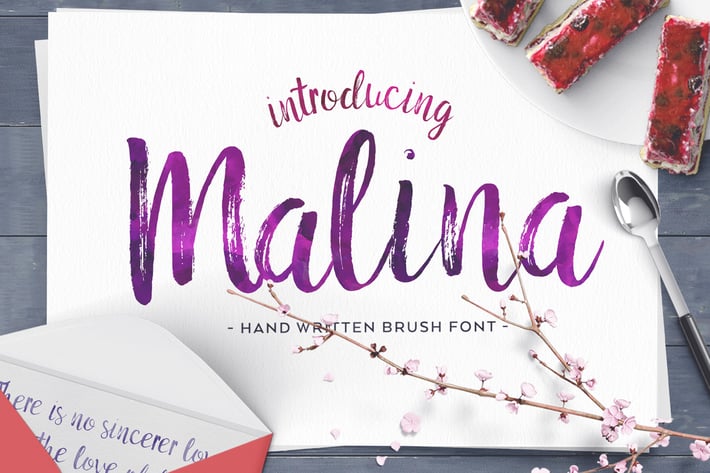
Malina Brush Font
Malina Brush Font is a hand brushed font with multilingual support. Malina is ideal for restaurant menus, greeting cards, invitations, weddings and many more. It is created with dry ink brush.